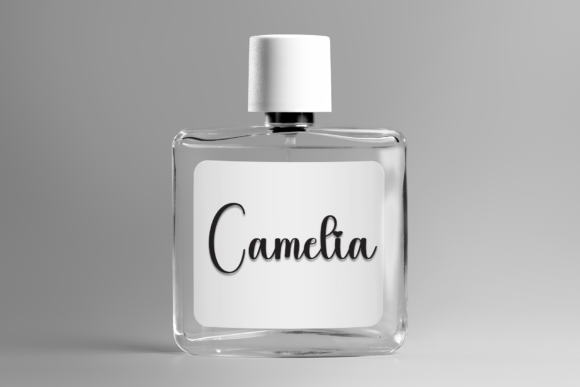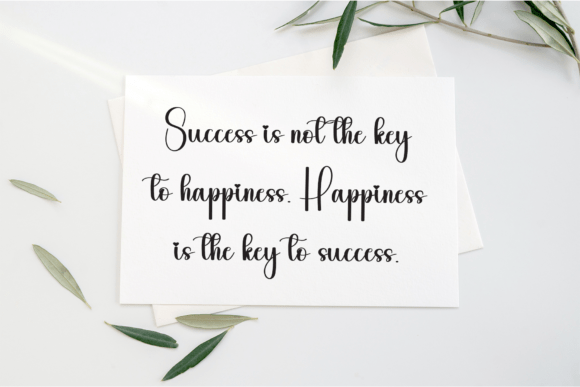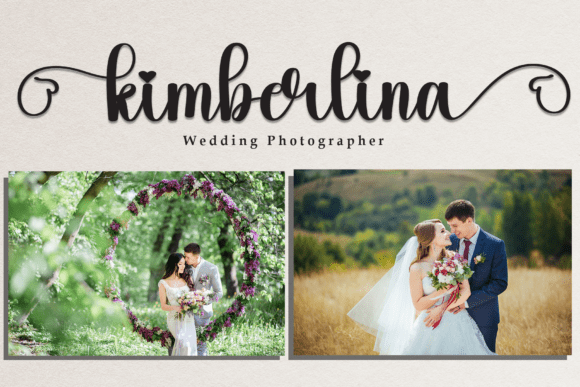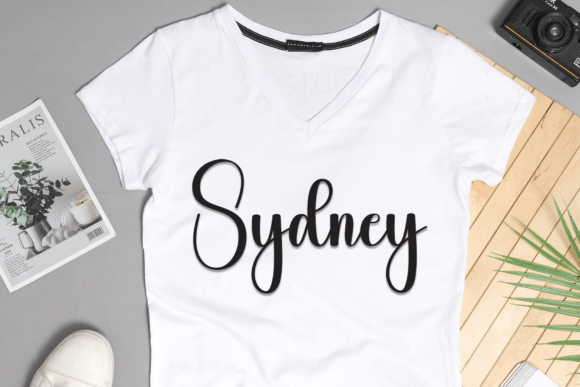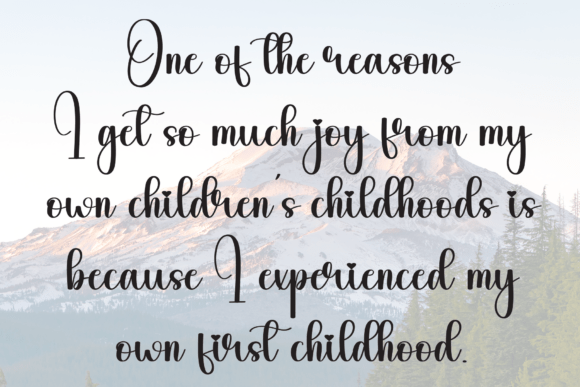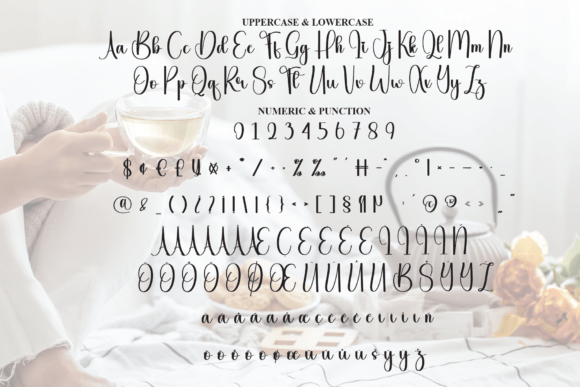
Introducing Beside Font: Adding a Dash of Charm to Your Designs
Are you looking for a font that can add a touch of sweetness and friendliness to your designs? Look no further than Beside Font, a captivating handwritten display font that is sure to immerse your creations in a dash of charm. With its enchanting and lighthearted vibes, this lovely font is perfect for crafting irresistible wedding invitations, greeting cards, or any design that craves that extra pinch of fun.
The Perfect Blend of Sweetness and Friendliness
Beside Font is a unique and delightful font that combines the best of both worlds – sweetness and friendliness. Its handwritten style gives it a personal and approachable feel, making it perfect for designs that require a touch of warmth and personality. Whether you’re creating wedding invitations, birthday cards, or social media graphics, Beside Font is sure to add a dash of charm and whimsy to your designs.
Enchanting and Lighthearted Vibes
One of the standout features of Beside Font is its enchanting and lighthearted vibes. The font’s playful and carefree style is sure to capture the joy in every stroke, making it perfect for designs that require a touch of fun and personality. Whether you’re creating designs for a wedding, a birthday party, or just a casual gathering, Beside Font is sure to add a touch of magic to your creations.
Beside Font is particularly well-suited for wedding invitations and greeting cards. Its sweet and charming style is perfect for capturing the romance and joy of a wedding, while its playful and lighthearted vibes make it ideal for birthday cards and other celebrations. With Beside Font, you can create designs that are both beautiful and memorable, making it a great choice for anyone looking to add a touch of elegance and whimsy to their designs.
Crafting Irresistible Designs with Beside Font
So how can you use Beside Font to craft irresistible designs? Here are a few tips:
- Use Beside Font as a headline font to add a touch of charm and personality to your designs.
- Pair Beside Font with other fonts to create a unique and eye-catching combination.
- Use Beside Font to add a touch of whimsy and fun to your designs, making them more engaging and memorable.
Why Choose Beside Font?
So why choose Beside Font for your designs? Here are just a few reasons:
- Unique and charming style: Beside Font has a one-of-a-kind style that is sure to add a touch of personality to your designs.
- Playful and lighthearted vibes: Beside Font’s playful and carefree style makes it perfect for designs that require a touch of fun and whimsy.
- Easy to read: Despite its playful style, Beside Font is easy to read and understand, making it perfect for designs that require a clear and concise message.
- Versatile: Beside Font can be used for a wide range of designs, from wedding invitations to social media graphics.
In conclusion, Beside Font is a captivating handwritten display font that is sure to add a dash of charm and whimsy to your designs. With its enchanting and lighthearted vibes, sweet and charming style, and versatility, Beside Font is perfect for designers and crafters looking to create irresistible wedding invitations, greeting cards, and other designs. So why wait? Download Beside Font today and start immersing your designs in a dash of charm and personality!
Key Features of Beside Font
- Handwritten display font
- Sweet and charming style
- Enchanting and lighthearted vibes
- Perfect for wedding invitations and greeting cards
- Easy to read
- Versatile